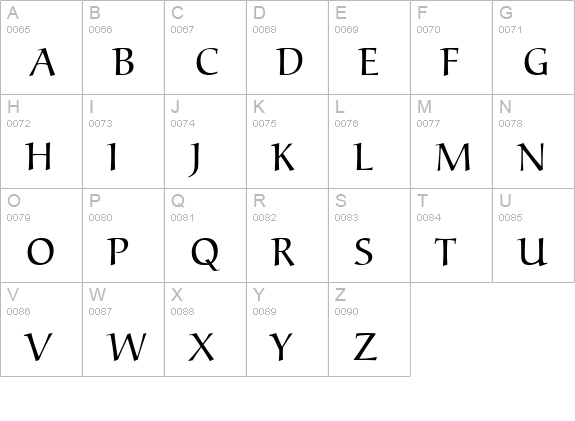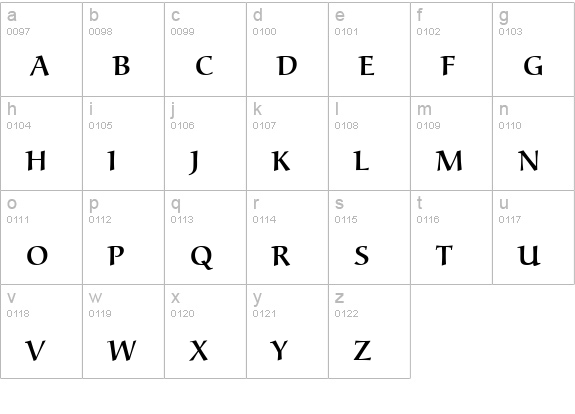
URWAlcuinSCTLig Font Details
URWAlcuinSCTLig is a beautifully designed font that exudes elegance and sophistication. Its sleek and slender letterforms are perfect for adding a touch of class to any project. This font features a ligature style, which adds a unique and artistic flair to your typography. What sets URWAlcuinSCTLig apart is not just its stunning aesthetics, but also the fact that it is completely free to download. Yes, you read that right - this incredible font is available at no cost, making it accessible to everyone. Whether you are a professional designer, a student working on a project, or just someone who appreciates the beauty of typography, URWAlcuinSCTLig is a valuable addition to your font collection. Downloading URWAlcuinSCTLig is incredibly easy. Simply visit FontsMarket.com, a trusted and reliable online platform for font enthusiasts. Once there, you can find URWAlcuinSCTLig among their extensive collection of fonts. With just a few clicks, you can have this font ready to use in your next creative endeavor. So why wait? Enhance your designs with the timeless beauty of URWAlcuinSCTLig. Download it for free today at FontsMarket.com and let your typography shine with elegance and style.